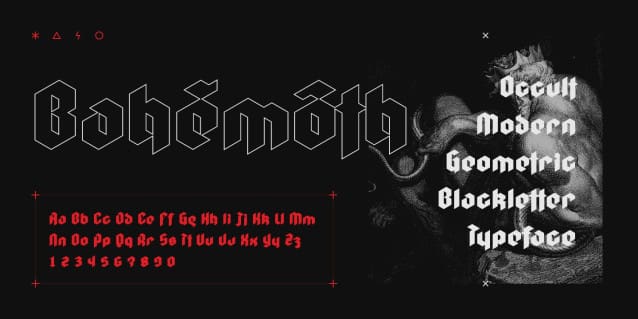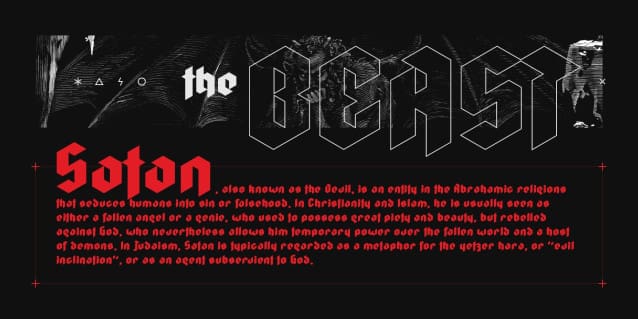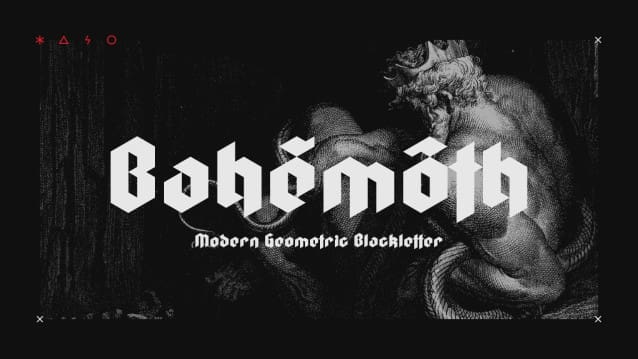
Bahemoth Font
Bahemoth Font a geometric blackletter font with bold attribute. Inspired by germanic gothic typography. The font is made of 256 glyphs in his full version. You can aquire for free (for personnal use) a demo version constitued of uppercase characters.